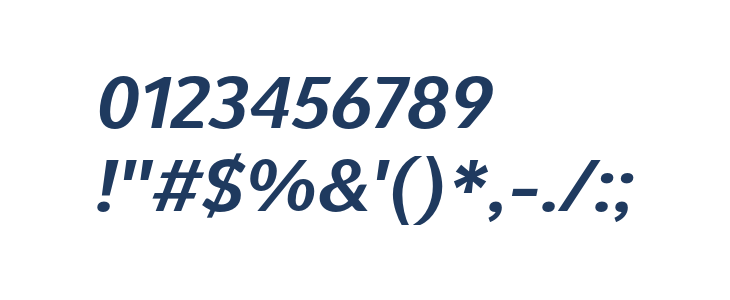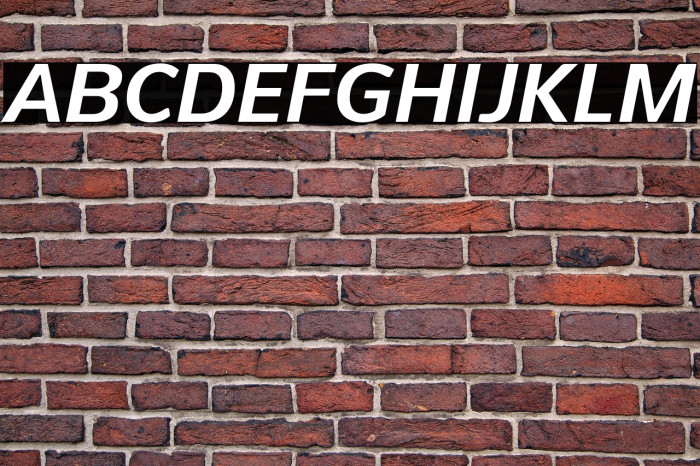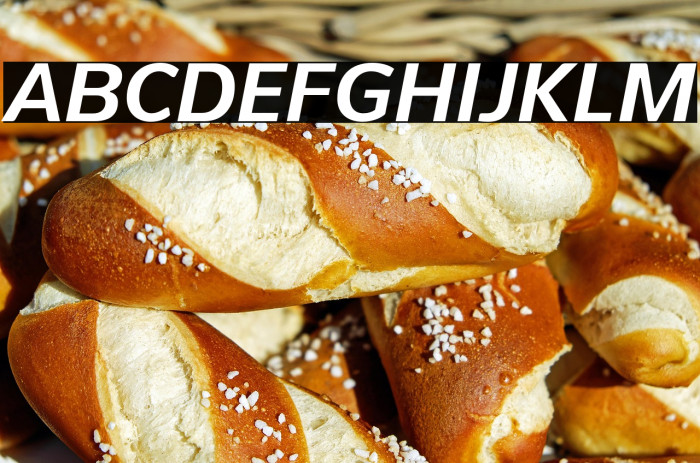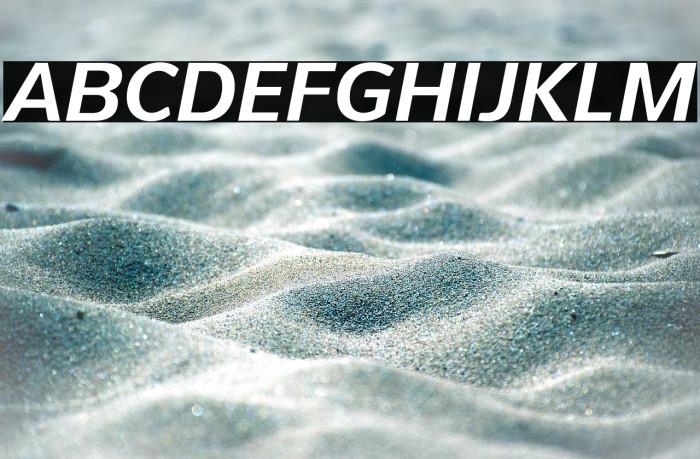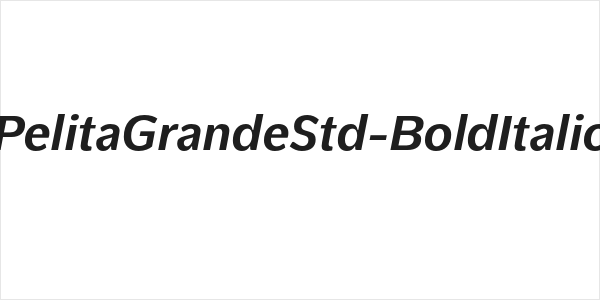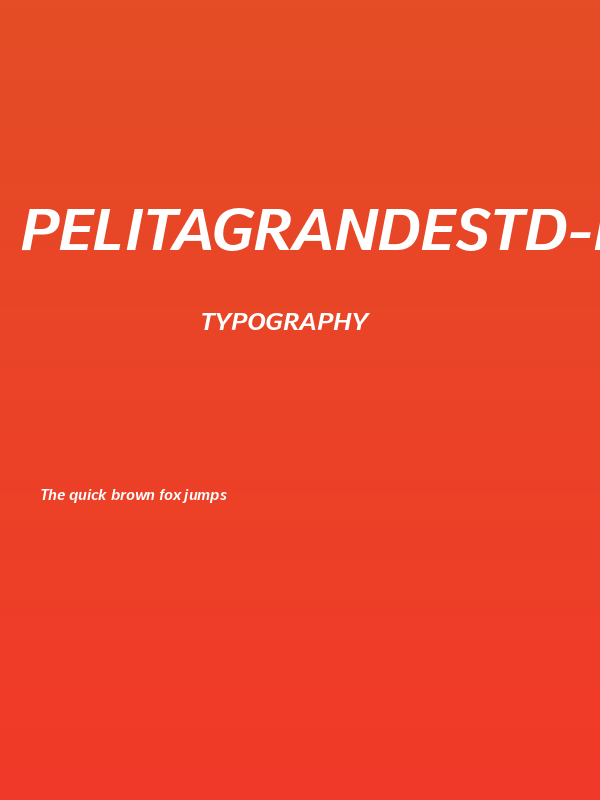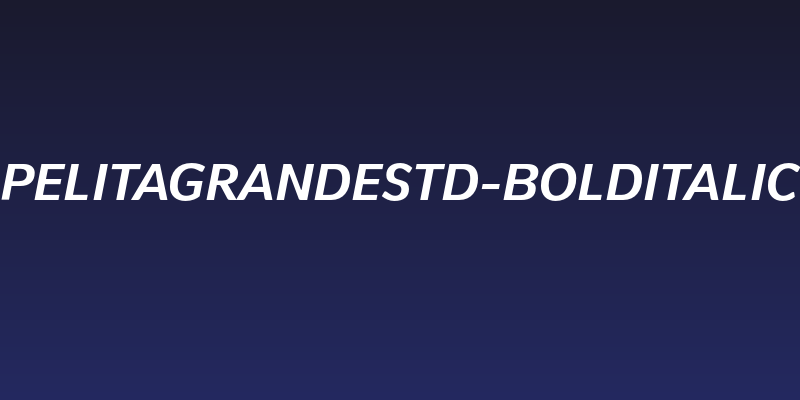
PelitaGrandeStd-BoldItalic Font
PelitaGrandeStd-BoldItalic Description
This font features a bold and italic style, combining a strong presence with a dynamic slant. The characters are well-defined with a consistent stroke weight, providing a sense of stability and confidence. The uppercase letters are slightly taller than the lowercase, maintaining a uniform width that ensures readability. The numerals are clear and distinct, matching the overall boldness of the alphabet. Special characters are crafted with precision, complementing the font's cohesive look. This typeface is versatile, suitable for various applications where emphasis and clarity are required.
| Use Case | Headlines, Logos, Advertising |
| Proposed Projects | Ideal for branding, advertising, headlines, and any project requiring a bold statement. |